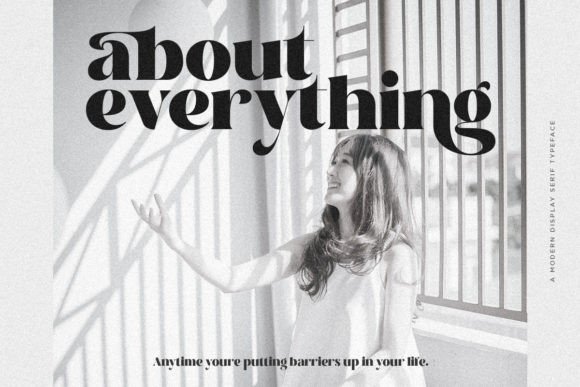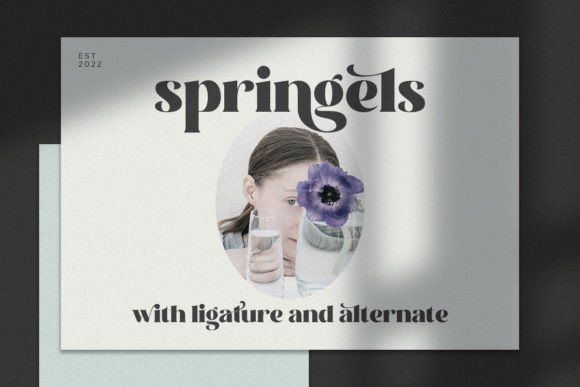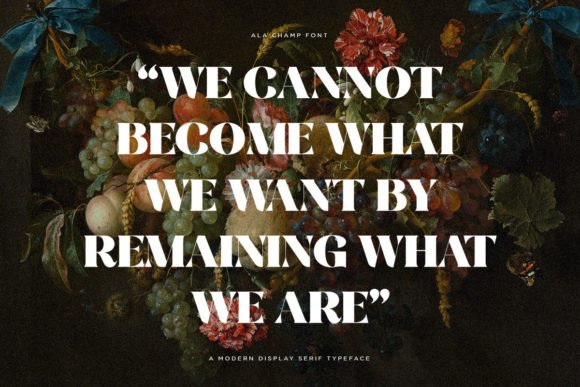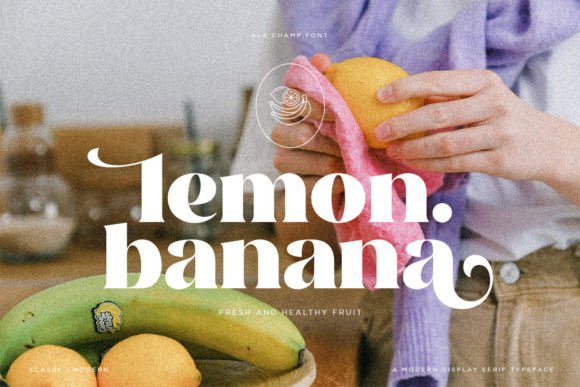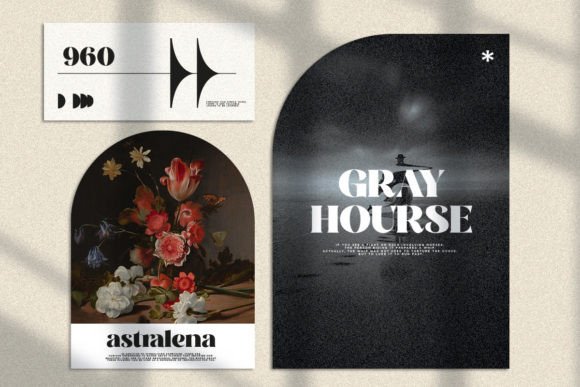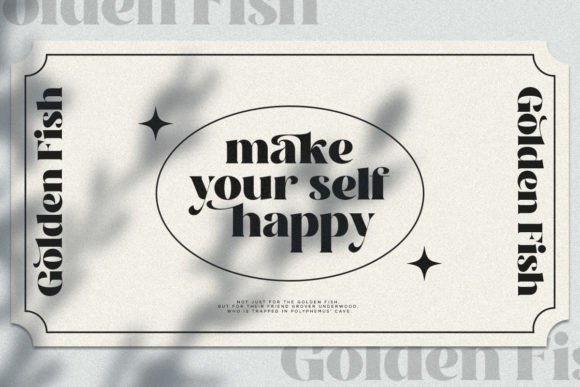
Introduction to Ala Champ Font
Ala Champ is a bold and stylish display font with a cheerful personality.
Its slightly playful characters that still maintain an elegant touch, will help you achieve an outstanding look This font is PUA encoded which means you can access all the glyphs and ligatures with ease.
Key Features of Ala Champ Font
Why Choose Ala Champ Font?
Ala Champ Font offers exceptional quality and versatility, making it a valuable addition to your design toolkit. Whether you’re creating for personal projects or commercial use, Ala Champ Font delivers professional results.